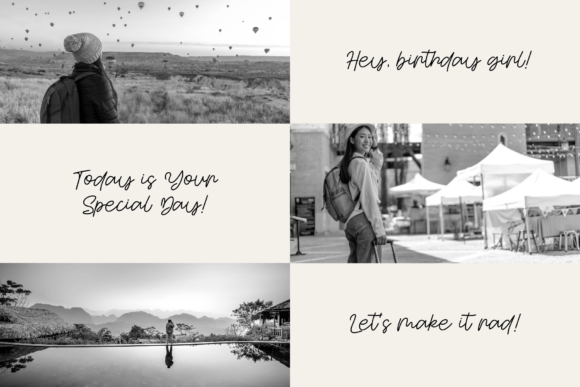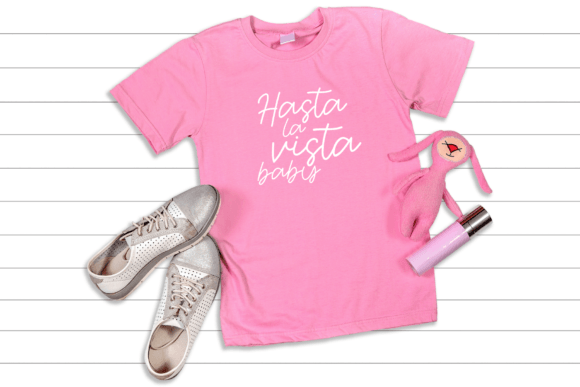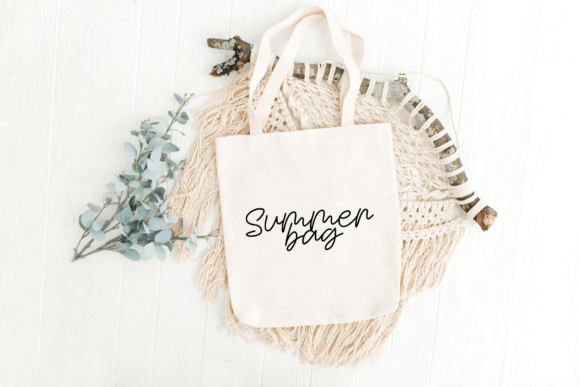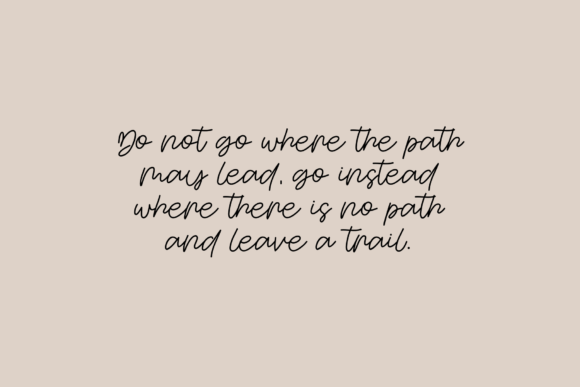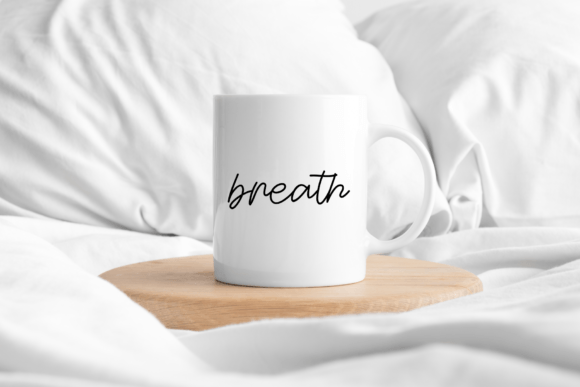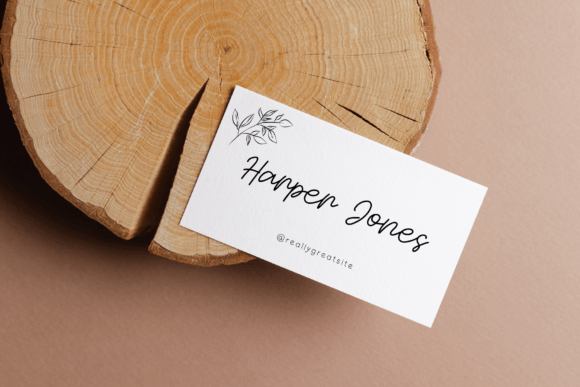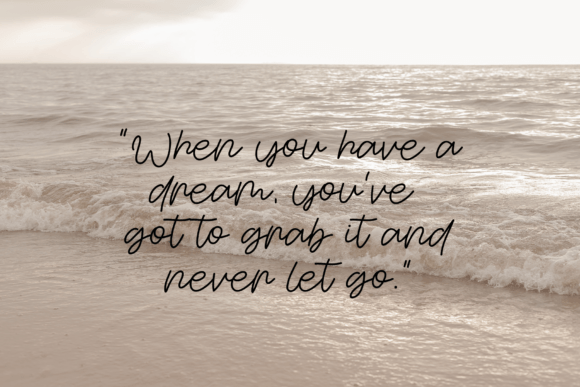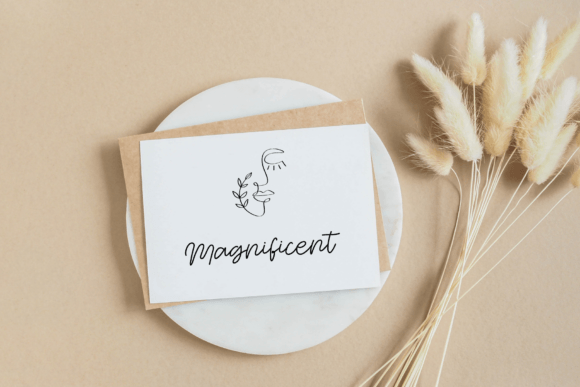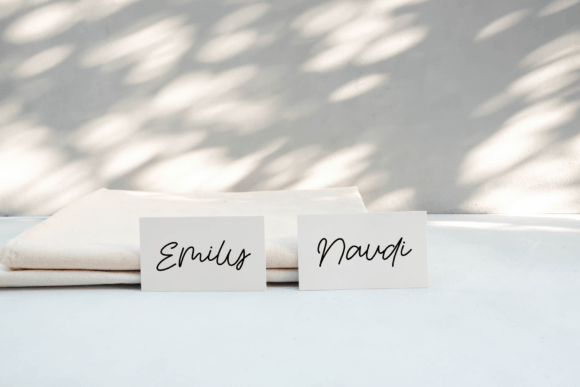
Commodo Font
About Commodo Font
**Elevate Your Designs with “Commodo” Handcrafted Script Font**
If you’re seeking to infuse your designs with a touch of elegance and handcrafted charm, the “Commodo” script font is the perfect choice. With its hand-drawn and elegant style, “Commodo” offers a wide range of creative possibilities for your projects:
1. **Handcrafted Authenticity:** “Commodo” boasts an authentic handcrafted appearance that adds a touch of uniqueness and originality to your designs. Each letter carries the warmth and character of hand lettering.
2. **Versatile Application:** This script font is highly versatile and suitable for various design projects. Whether you’re working on branding, invitations, blogs, or planners, “Commodo” will add a stylish and personalized touch.
3. **Elegant Aesthetic:** “Commodo” exudes an elegant and refined aesthetic, making it perfect for projects that require a sophisticated and upscale look. It’s well-suited for luxury brands and upscale design concepts.
4. **Branding and Logo Design:** Create memorable brand identities and logos with the distinctive style of “Commodo.” It lends an air of exclusivity and craftsmanship to your brand’s visual identity.
5. **Invitations and Stationery:** Design exquisite and personalized invitations, wedding stationery, and greeting cards that leave a lasting impression. “Commodo” elevates your stationery with its elegant flair.
6. **Blog Headers and Social Media Graphics:** Make your blog headers and social media graphics stand out with the refined elegance of “Commodo.” It’s perfect for adding a touch of sophistication to your online presence.
7. **Planners and Journals:** Enhance the visual appeal of planners, journals, and notebooks with the handcrafted charm of “Commodo.” Its graceful lettering adds an artistic dimension to these products.
8. **Printed Materials:** Use “Commodo” for brochures, flyers, and promotional materials to convey professionalism and refinement. Its elegance and readability make it an ideal choice for print.
9. **Product Packaging:** Create stylish and eye-catching product packaging that grabs attention on the shelves. “Commodo” adds a touch of luxury to your packaging designs.
10. **Quotes and Typography Art:** Craft beautiful typography art and inspirational quotes that resonate with your audience. “Commodo” enhances the visual impact of your messages.
“Commodo” is a script font that celebrates the art of hand lettering. Its elegant strokes and handcrafted appeal bring authenticity and sophistication to your designs. Whether you’re working on a branding project, invitations, or any creative endeavor, “Commodo” effortlessly adds a touch of handcrafted beauty and elegance.